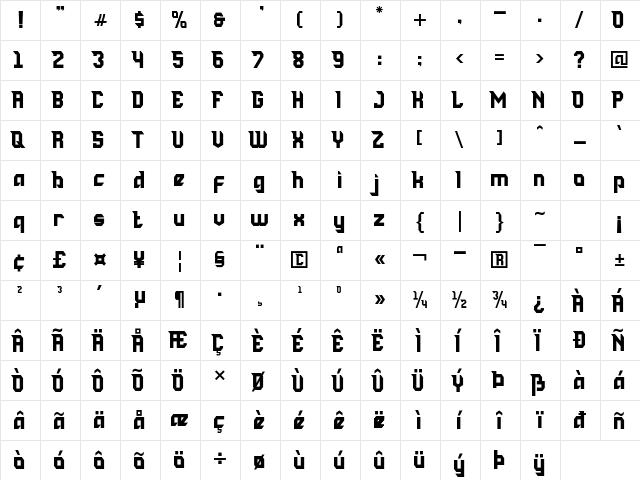
Big Space Regular
| Designer | Nurf Designs |
Design Context for Big Space Typeface
Big Space is a composed and adaptable typeface that performs quietly and consistently across a wide range of design contexts.